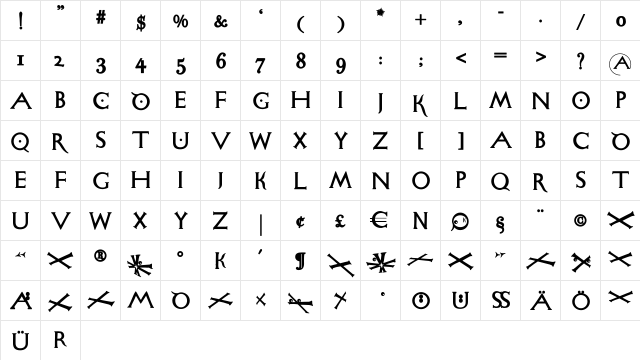
SigismundoDiFanti Regular
Design Context for SigismundoDiFanti Typeface
SigismundoDiFanti is a composed and adaptable typeface that performs quietly and consistently across a wide range of design contexts.